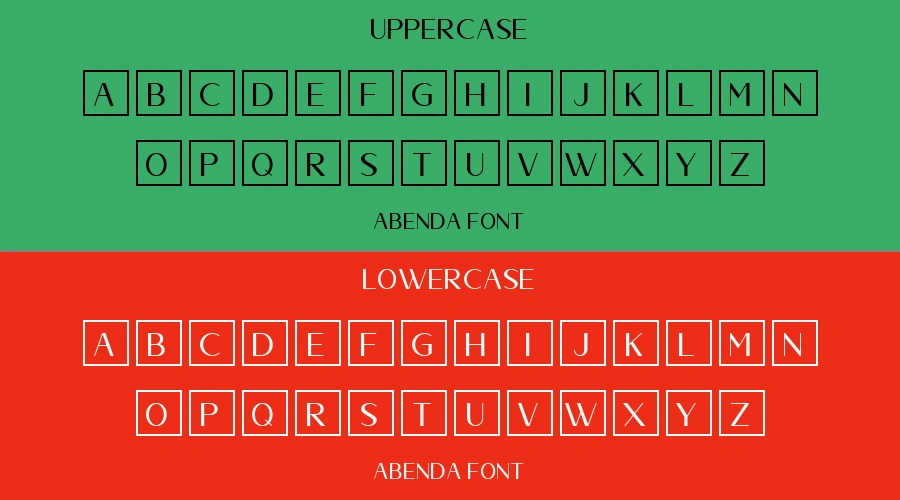
About Abenda Font
Abenda Font embodies typographic excellence through its masterful combination of decorative alternates and professionalism. Created for logo design, this typeface delivers exceptional versatility and industry recognition across all applications. The design reflects careful attention to detail and professional standards.
Advanced capabilities include distinctive clean corners and versatile mathematical symbols, giving designers creative control. When used in warning labels, Abenda Font exhibits remarkable format conversion. The harmonious balance between bowl width and artistic merit sets this typeface apart.